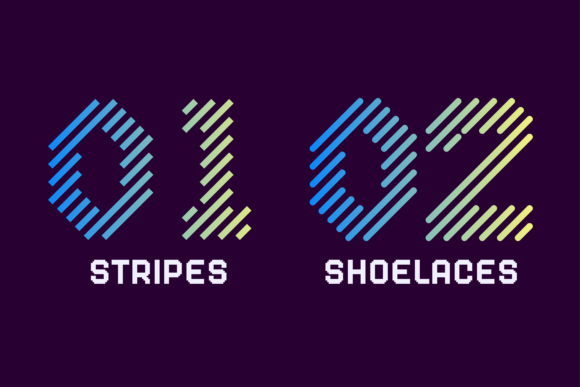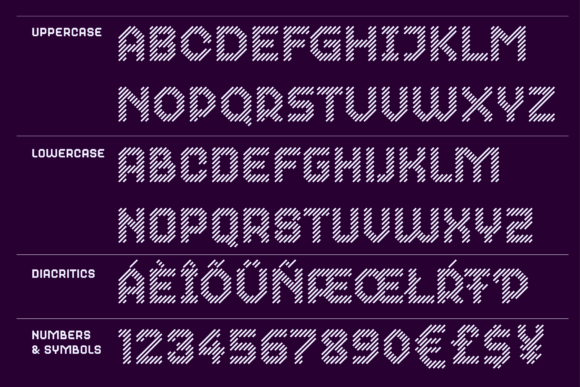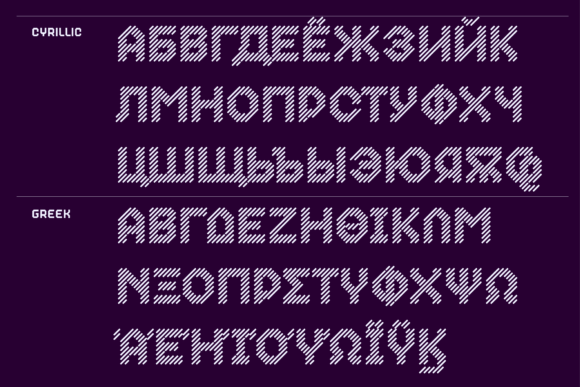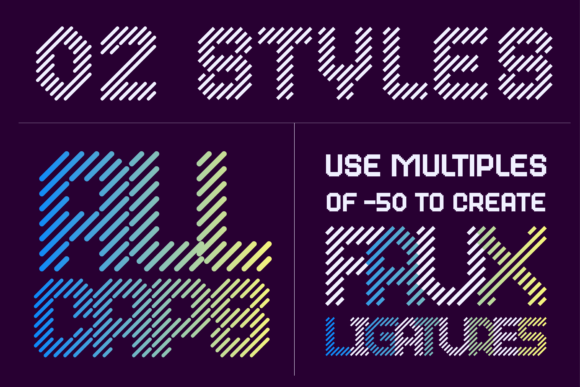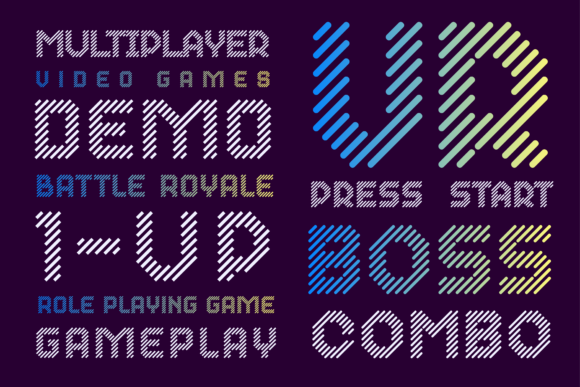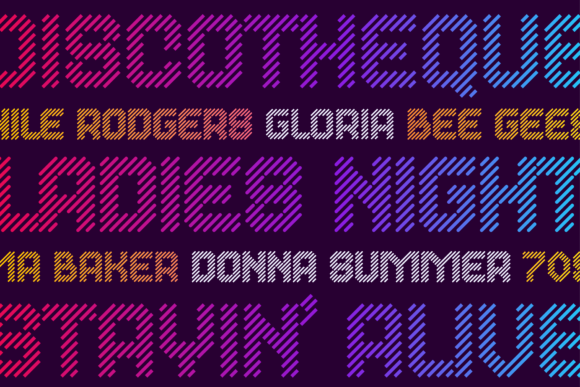
Introduction to Dance Floor MIx 26 Font
Dance Floor Mix 26 is an outstanding display font.
Use it to create amazing and eye-catching designs .
Key Features of Dance Floor MIx 26 Font